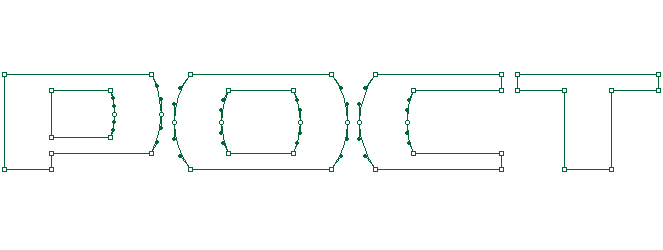
Especially for Rostselmash Art. Lebedev Studio developed a font that was named Rost. The font consists of two typefaces: bold and light. The signs originally created for the company logo subsequently served as a basis for Don, Niva and Vector harvesters logos. ![]() ![]() ![]() ![]() |